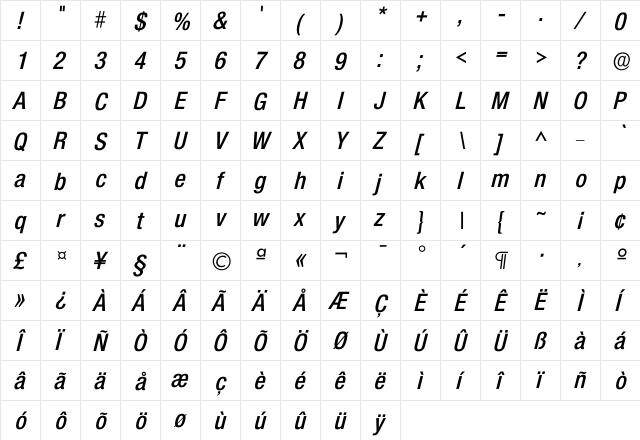
Icolnova DemiBold
Design Context for Icolnova Typeface
Icolnova takes a measured approach to typography — its balanced proportions and neutral character make it a reliable workhorse for both digital and print work. Its bold stroke weight gives it real presence on the page.